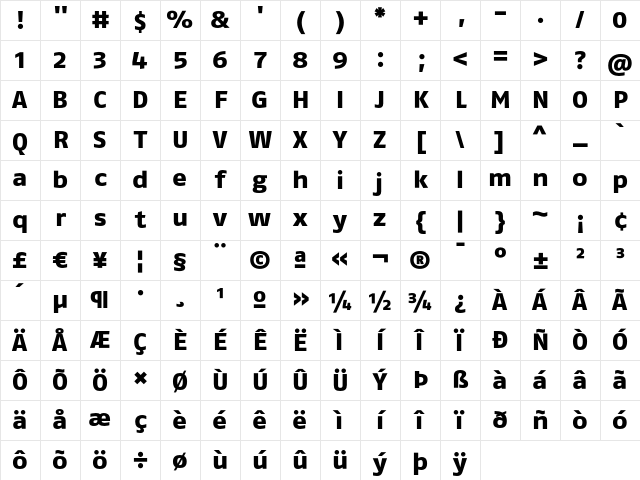
FagoExLf ExtraBold Free Font
FagoExLf ExtraBold
Design Context for FagoExLf
FagoExLf is a composed and adaptable typeface that performs quietly and consistently across a wide range of design contexts. Its bold stroke weight gives it real presence on the page.